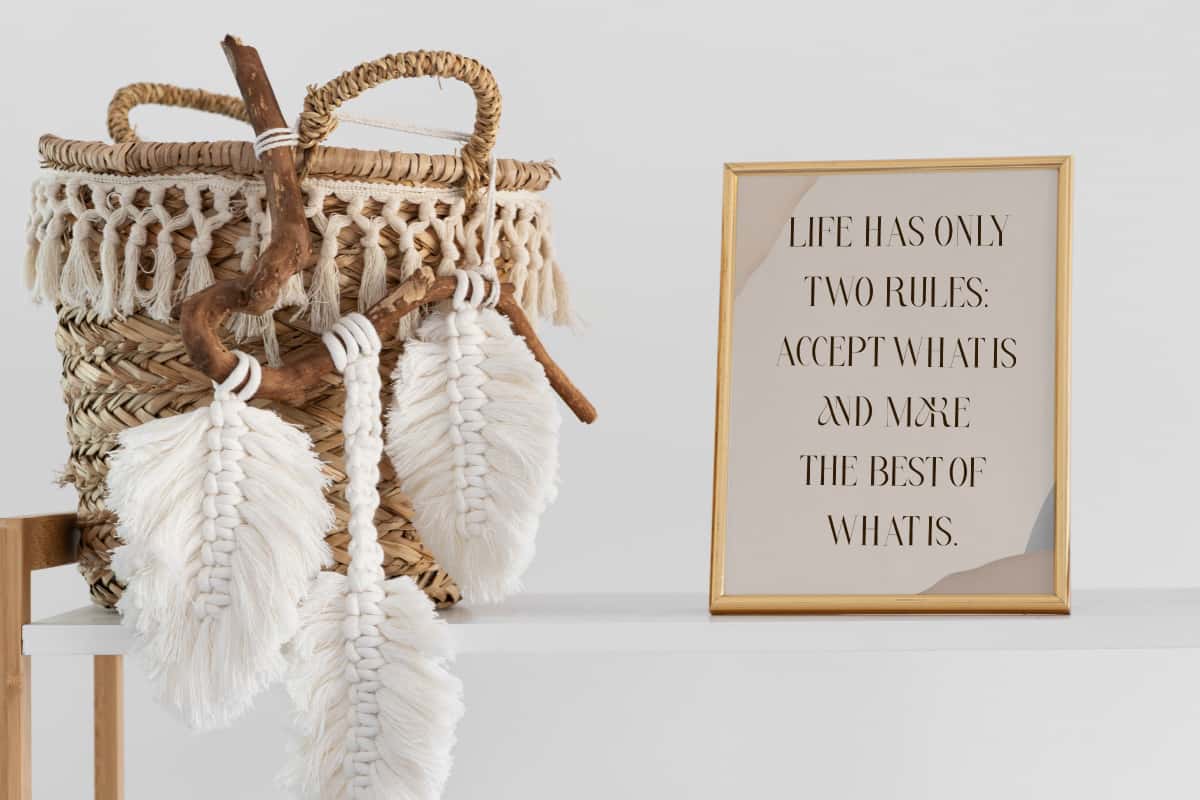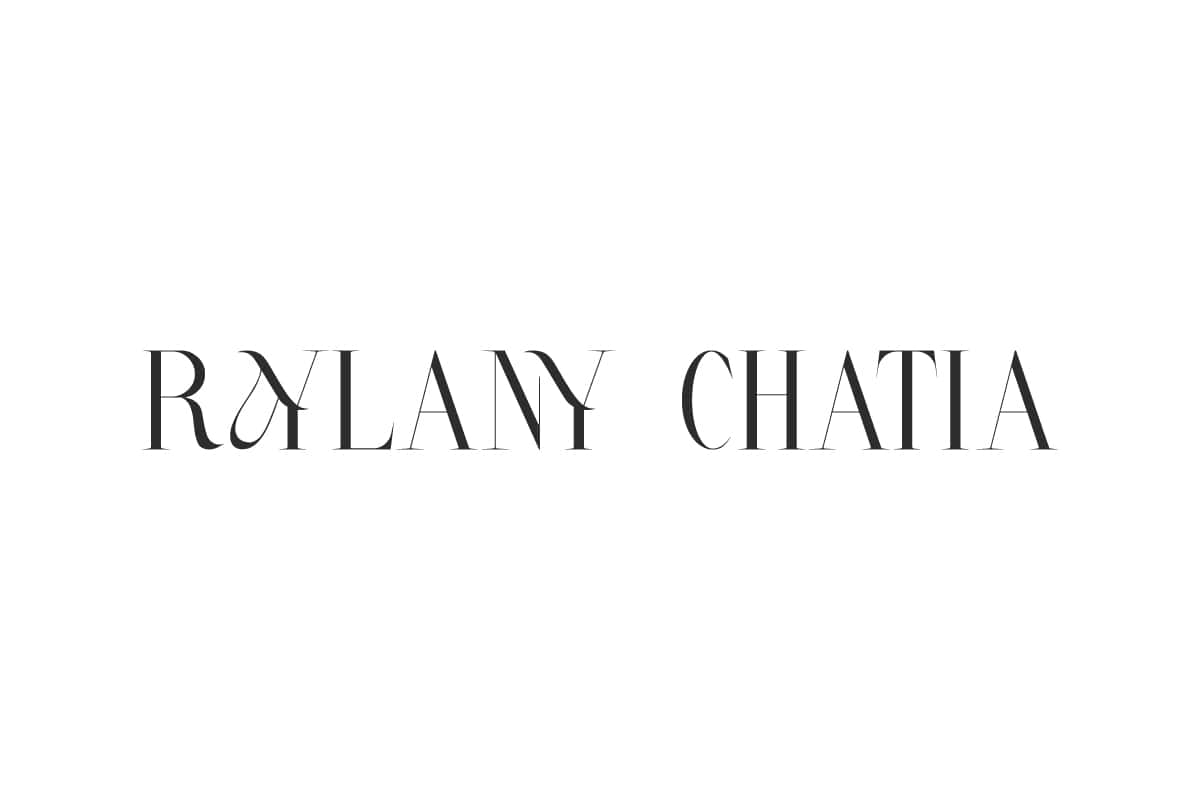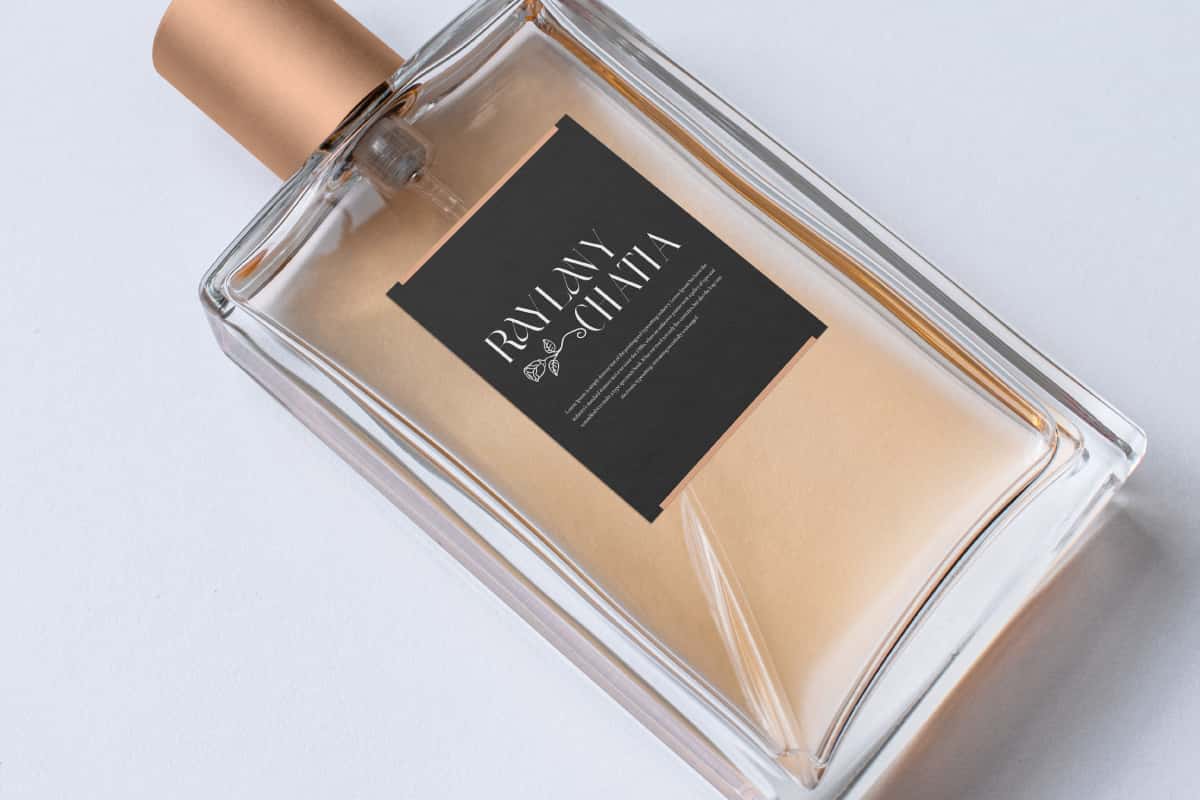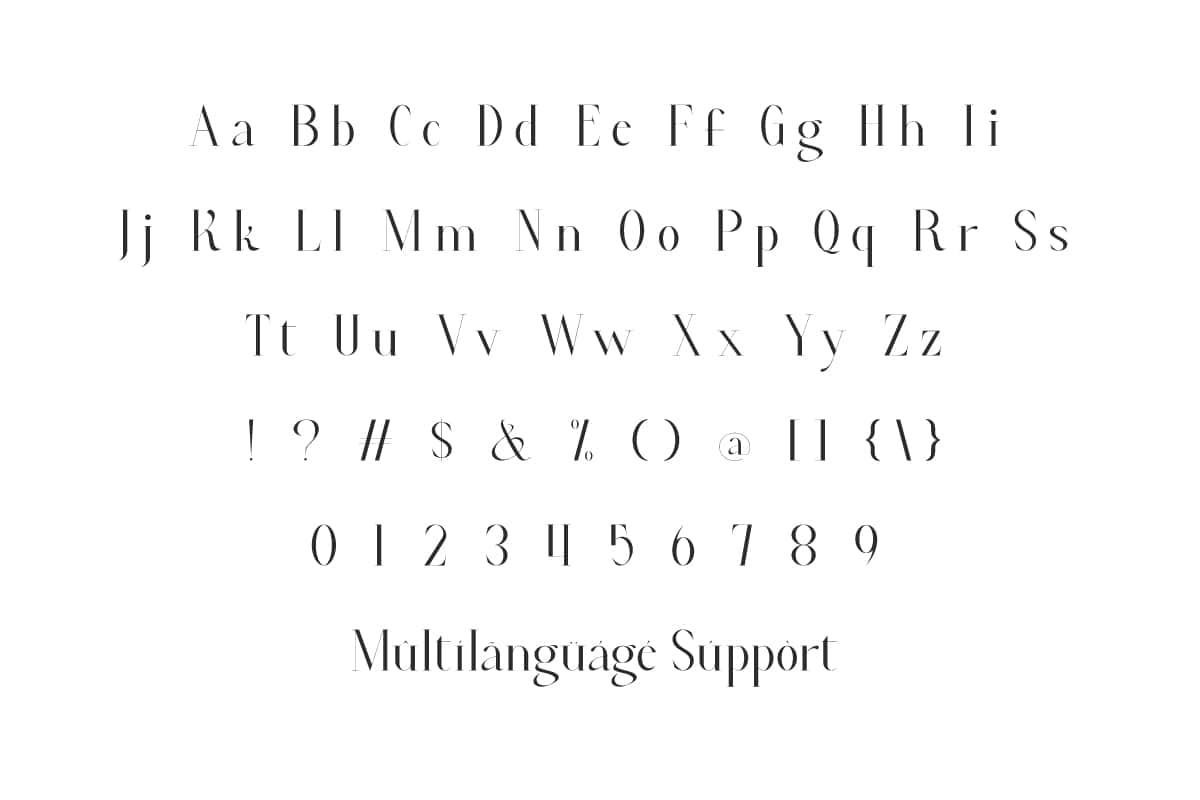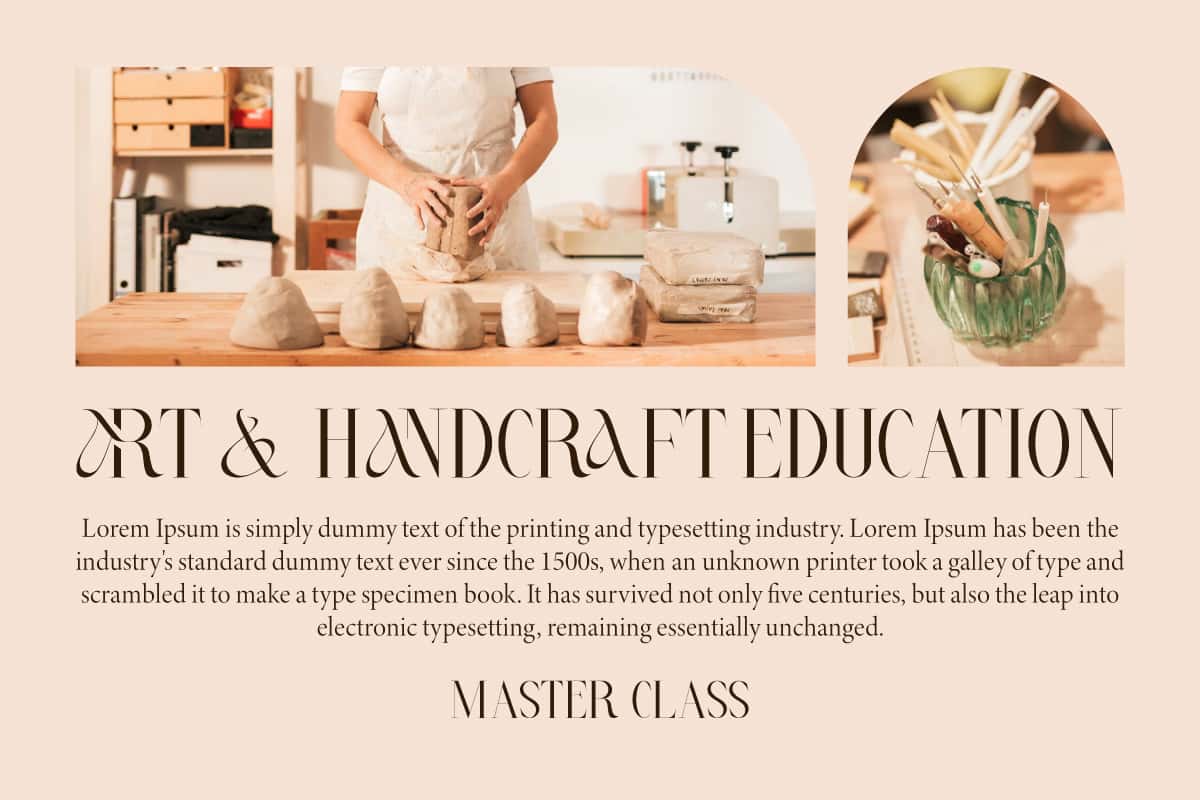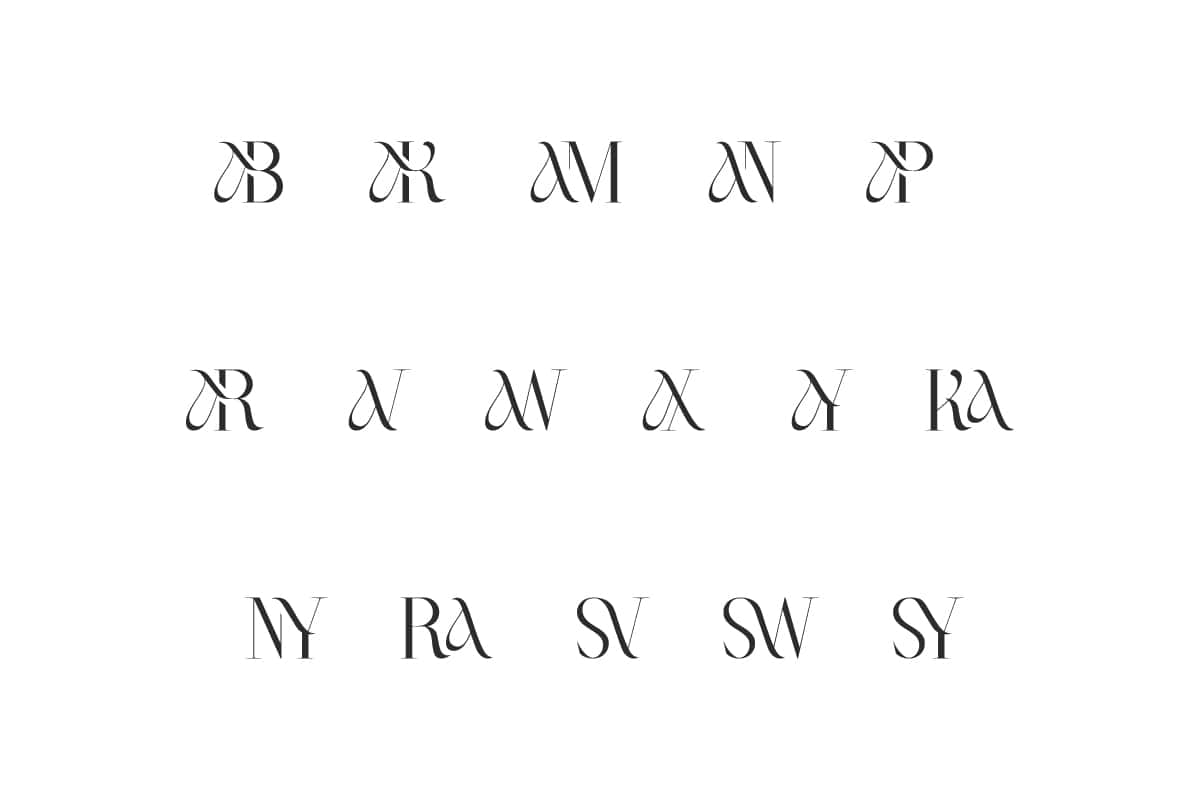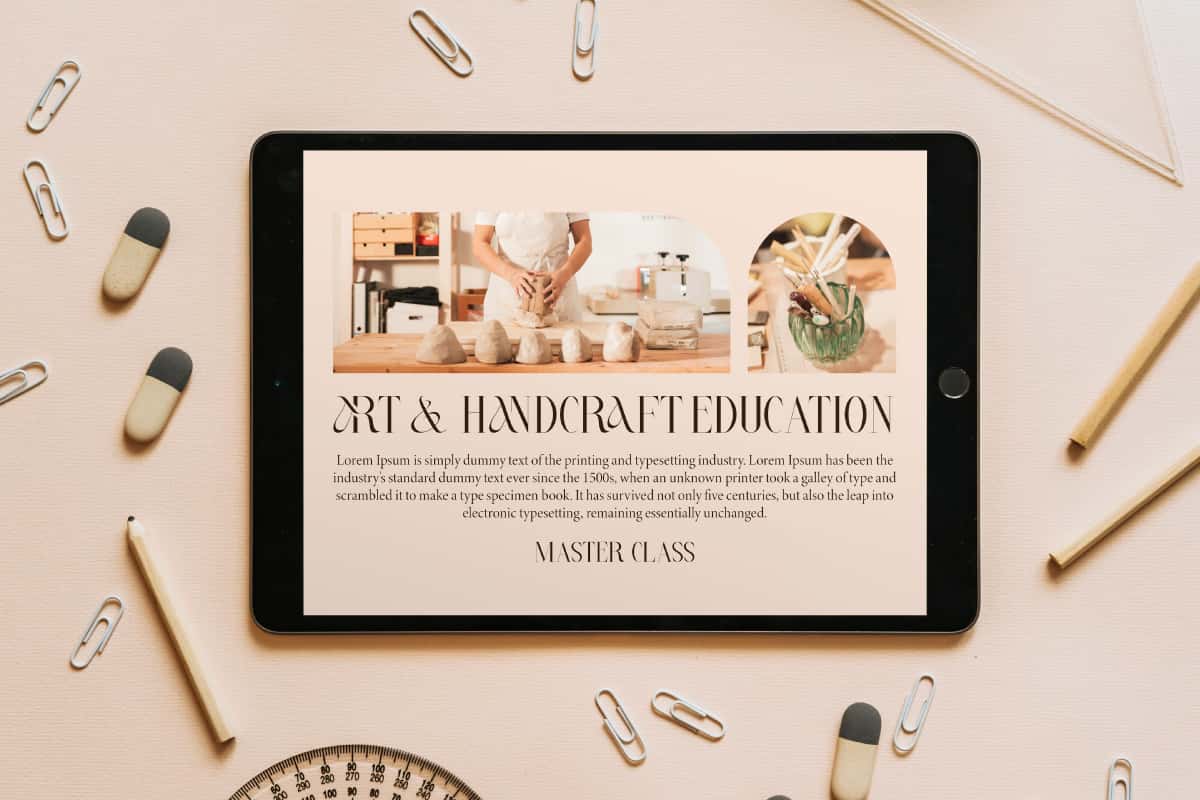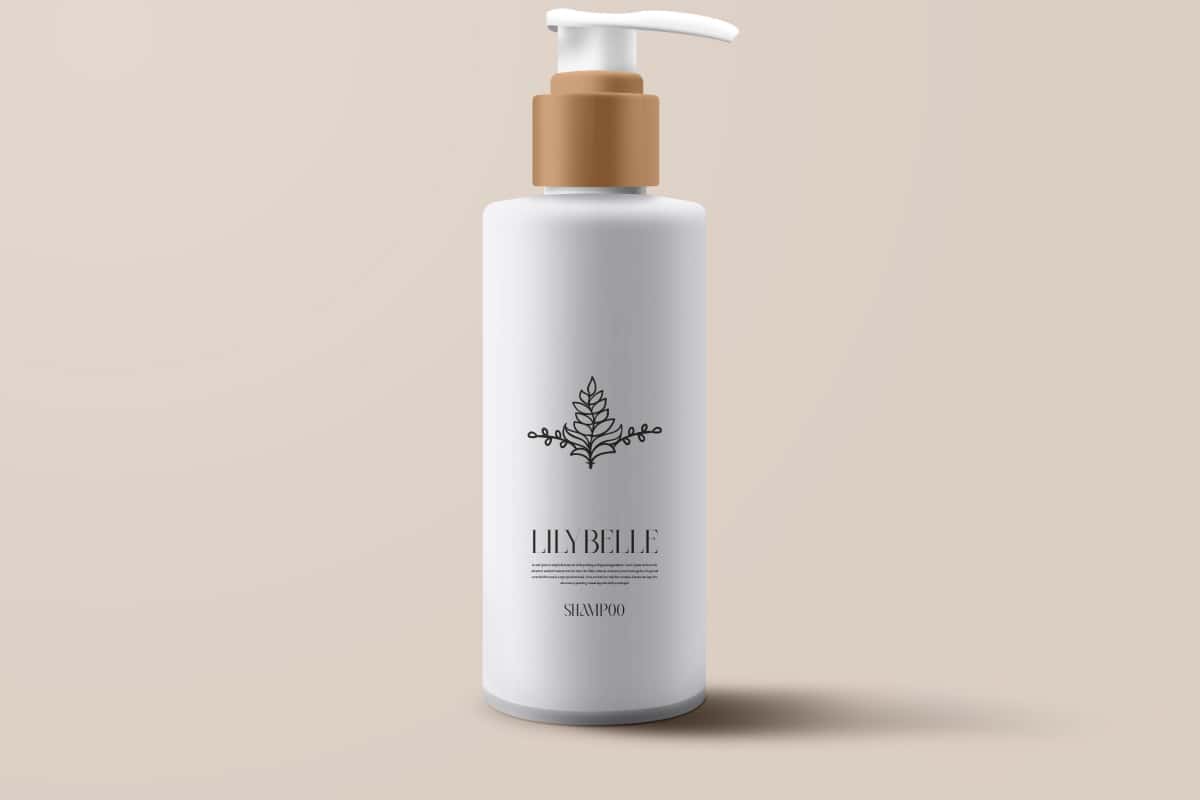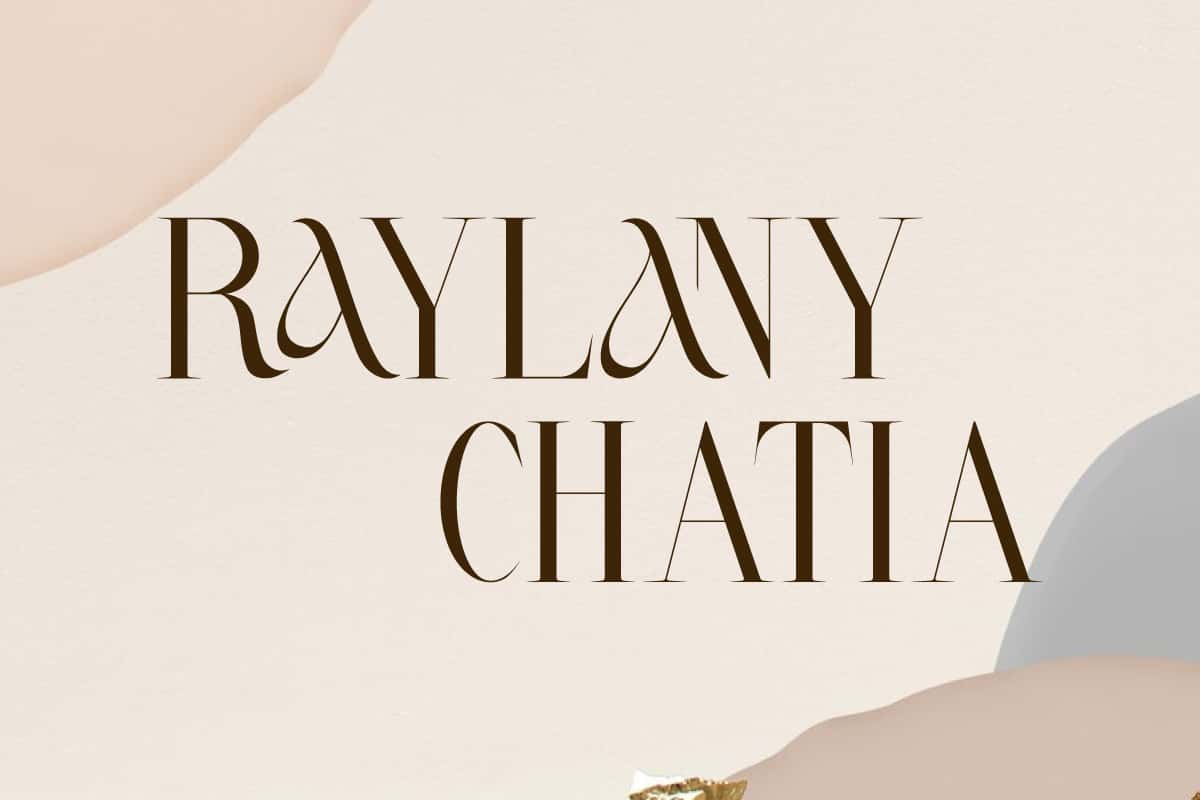
Raylany Chatia Font is a sophisticated serif font that merges modern aesthetics with luxurious details, perfect for any of your project
Raylany Chatia Font is a modern and elegant serif font that gracefully merges contemporary style with enduring sophistication, making it ideal for any refined project. It would be very suitable to be used too in body text, book covers, business cards, editorial design, fashion magazines, greeting cards, headlines, invitations, labels, logos, mockup, packaging, print, quotes, signage, title, website and many more.
Raylany Chatia Font includes full set of Uppercase and Lowercase Basic Characters, Numbers, Punctuation, Symbols and Ligature. Carefully designed ligatures lend fluidity and sophistication to every word you craft. So, it is a great choice for architecture, art & design, beauty product, blogging, e-commerce, fashion, hospitality, interior design, jewelry, luxury goods, photography, real estate, wedding, etc.